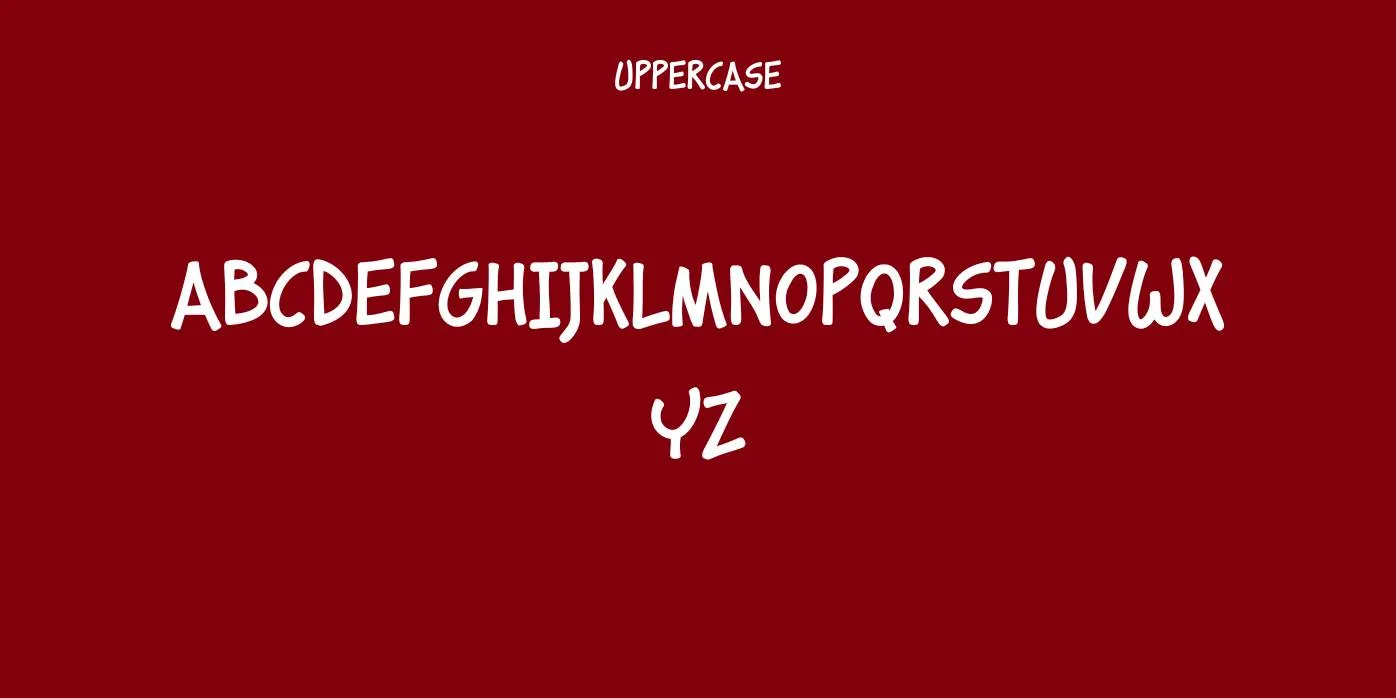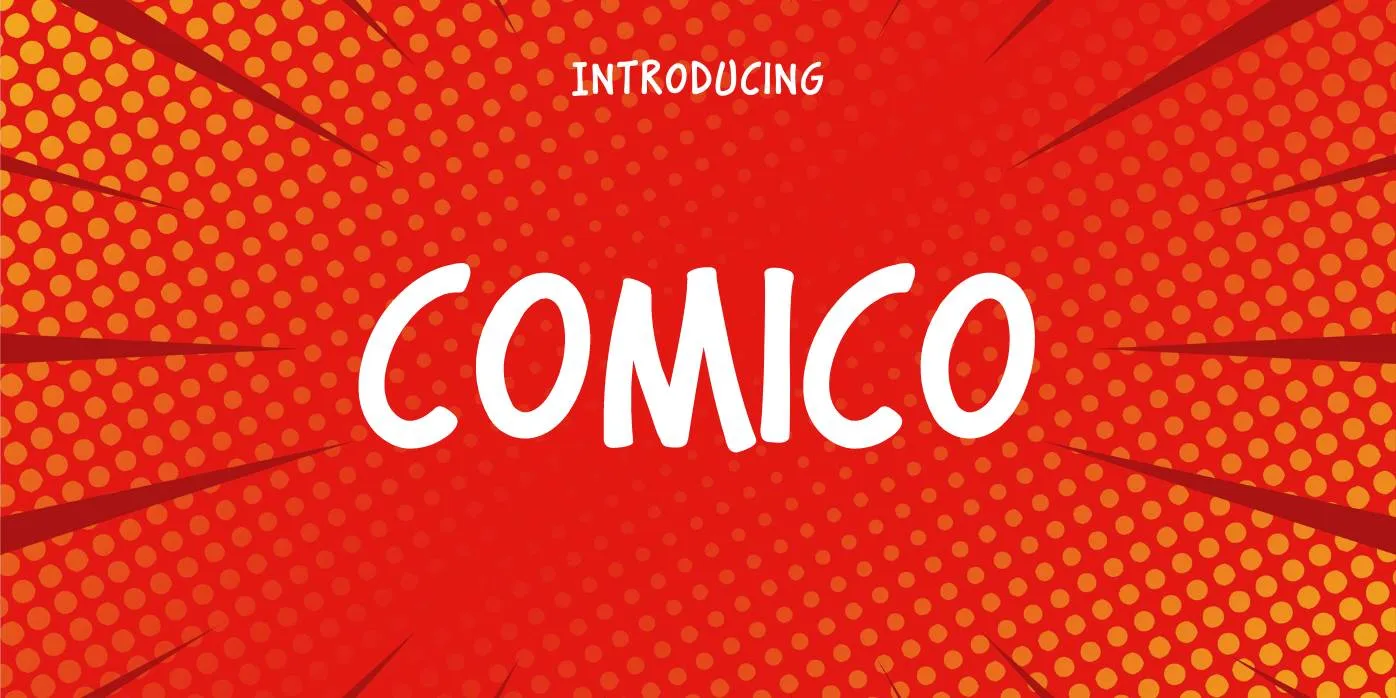
Comico Font
Comico Font is a very funky and top-notch typeface design that has clean characters and charming glyphs. This is a fancy typeface design that was created by a very well-known designer Don Marciano.¬† This is a comic font that comes in ALL-CAPS letters. It comes in a regular style with around 379 glyphs or characeters. The Google and adobe stores don’t have this font for purchase, but it can be downloaded for free from our website.
This typeface is considered to be the best font it can easily be uploaded in any editing application like Microsoft Word, Excel, Photoshop and many more. Usage Many creators wish to use this stunning font for various projects such as invitations, posters, labels, logos, and many more. This is a fancy font family that can be used for multiple purposes such as vehicle wraps, emblems, posters, book covers, and many other things. This font supports multiple languages hence you can use it in international projects as well.
Is Comico a modern font? Because of its thin look and huge style characters, it is good for any design project. It also commonly used in the modern era because of its uniqueness. Can I Generate Comico Font?